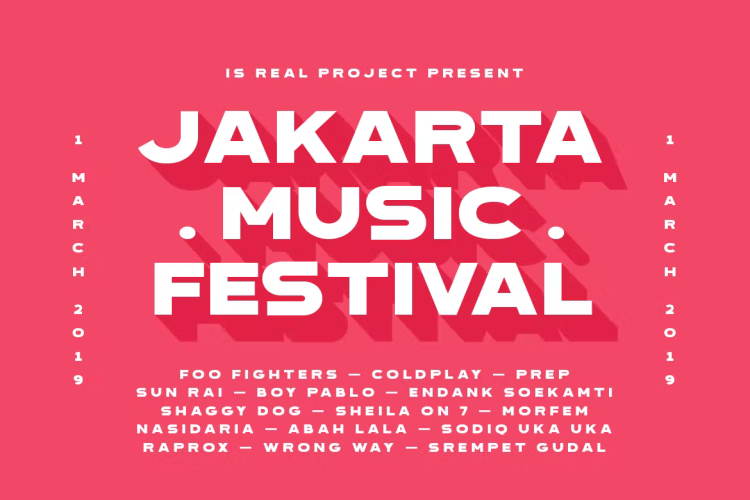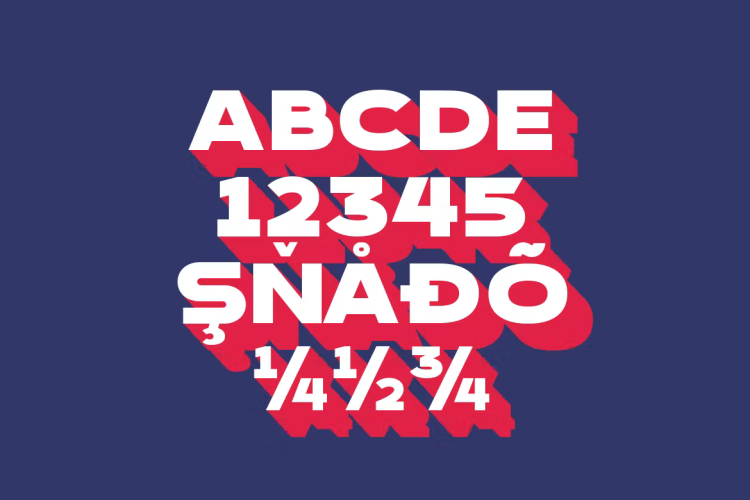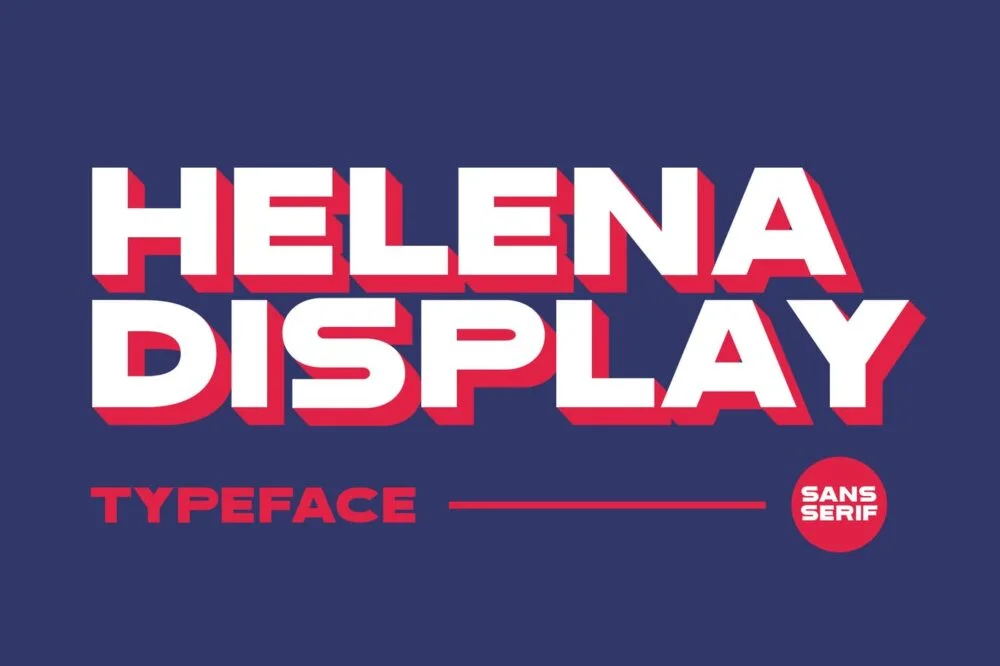
Helena Display Font
Helena Display Font – is an expanded sans serif typeface made to supply industry, fashion, editorial, and corporate needed of a strong headline font family for titles, logo, sign system, presentation, and any branding necessary.
Helena Display Font is a Display Fonts font that brings a professional and versatile look to your projects. Helena Display Font – is an expanded sans serif typeface made to supply industry, fashion, editorial, and corporate needed of a strong headline font family for titles, logo, sign system, presentation, and any branding ne.